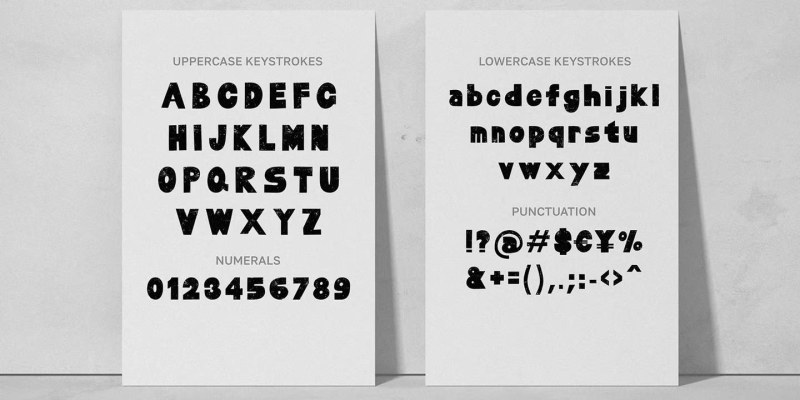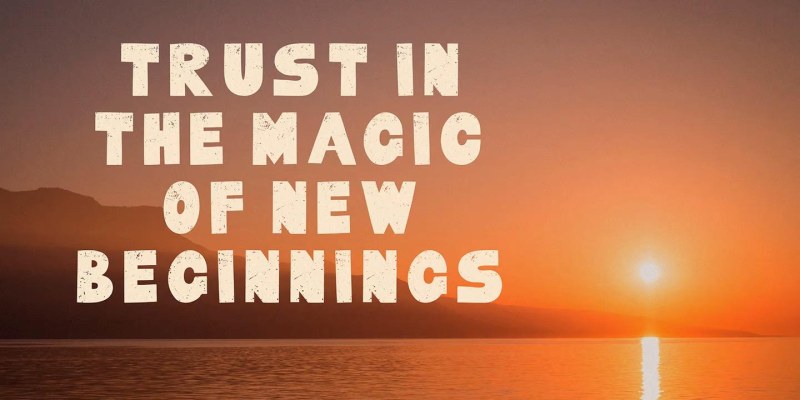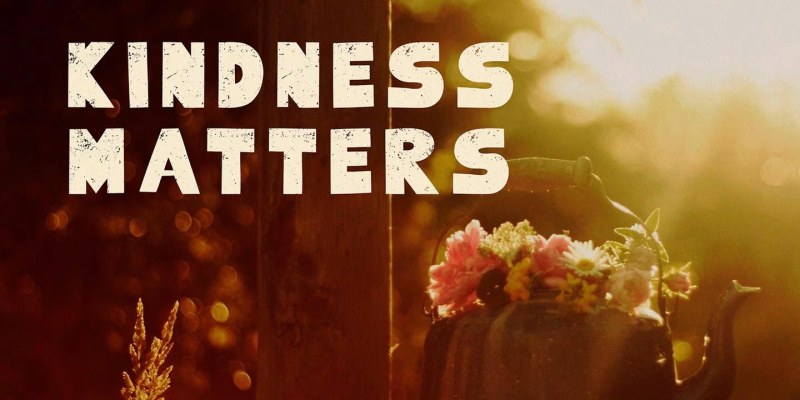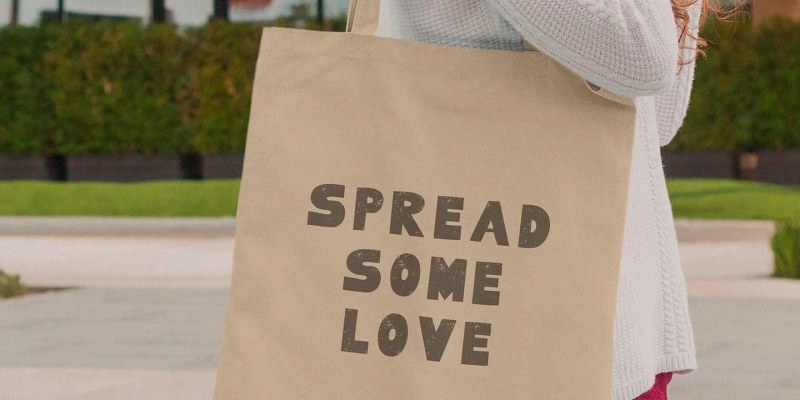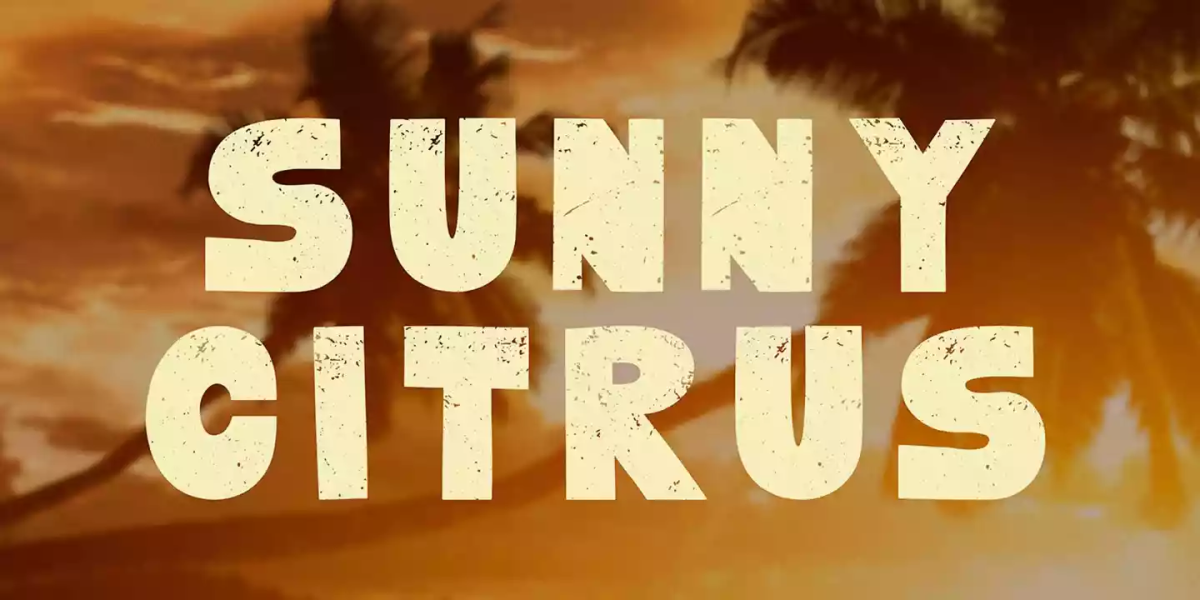
Sunny Citrus Font
Add a stylish touch to your design with the new duo Sunny Citrus font. Consisting of textured sans-serif capital letters and bold offers you many possibilities in your professional design projects. Perfect for creating beautiful typographic designs – perfect for branding, posters, book covers, social media, merchandise and more. This font is filled with a whole bunch of amazing additions – bold strokes and rough pieces.
Sunny Citrus Font is a Display Fonts font that brings a professional and versatile look to your projects. Add a stylish touch to your design with the new duo Sunny Citrus font.